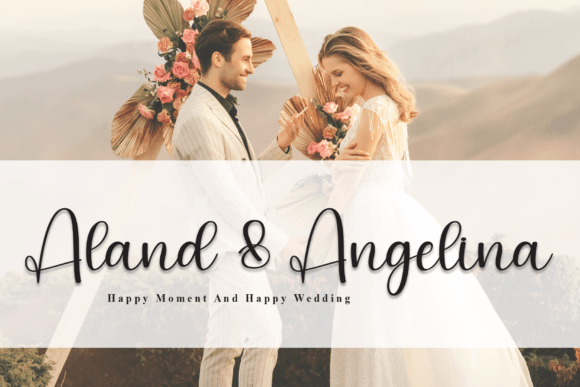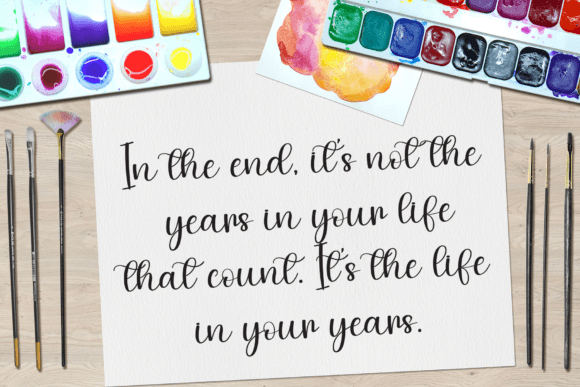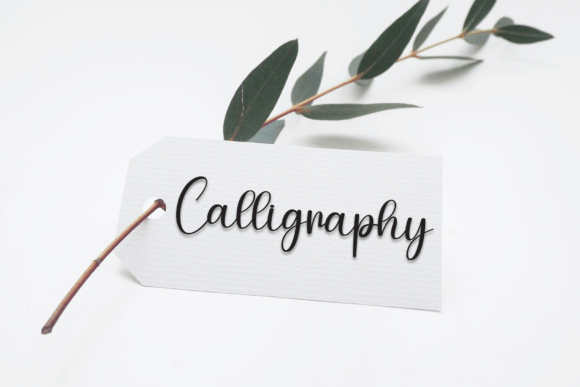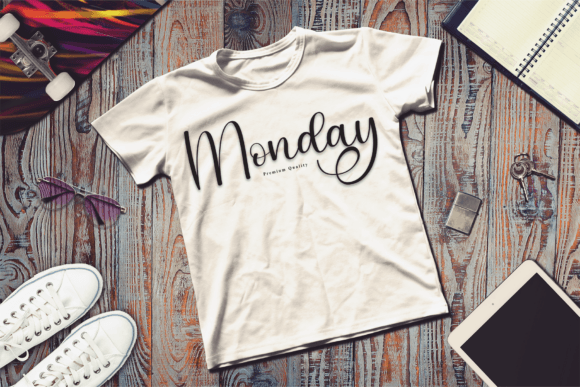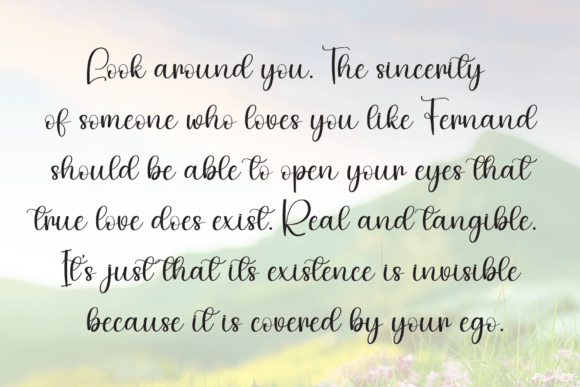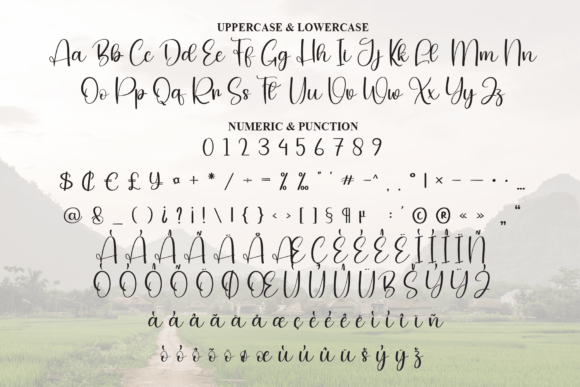
Introducing Country Font: The Charming Handwritten Font for Cozy Designs
Are you looking for a font that captures the essence of a rustic, small-town charm? Look no further than Country Font, a beautiful handwritten font that exudes a cozy, inviting feel. With its smooth curves and friendly style, Country Font is perfect for creating warm and welcoming designs that evoke a sense of nostalgia and simplicity.
The Characteristics of Country Font
Country Font is a carefully crafted handwritten font that boasts a range of characteristics that make it ideal for a variety of design projects. Some of its key features include:
- Smooth curves: Country Font features smooth, flowing curves that give it a soft and approachable feel.
- Handwritten style: The font’s handwritten style gives it a personal, human touch that’s perfect for creating unique and eye-catching designs.
- Easy readability: Despite its decorative nature, Country Font is surprisingly easy to read, making it perfect for use in body text and other applications where legibility is key.
- Warm and inviting: Country Font has a warm, welcoming feel that’s perfect for creating designs that evoke a sense of comfort and coziness.
Uses for Country Font
Country Font is an incredibly versatile font that can be used in a wide range of design projects. Some of the most popular uses for Country Font include:
- Invitations: Country Font is perfect for creating warm and inviting invitations for weddings, parties, and other special events.
- Crafts: The font’s handmade feel makes it a natural fit for craft projects, such as DIY tutorials, patterns, and other handmade goods.
- Casual designs: Country Font is ideal for creating casual designs, such as flyers, brochures, and other marketing materials that require a friendly, approachable feel.
- Signage: The font’s clear, easy-to-read style makes it perfect for use in signage, such as store signs, directional signs, and other types of display text.
Tips for Using Country Font
To get the most out of Country Font, here are a few tips to keep in mind:
- Pair it with contrasting fonts: Country Font pairs beautifully with bold, sans-serif fonts that provide a nice contrast to its smooth, cursive style.
- Use it in moderation: While Country Font is a beautiful font, it can be overwhelming if used excessively. Use it sparingly to add a touch of personality to your designs.
- Experiment with colors: Country Font looks great in a range of colors, from earthy tones to bright, bold hues. Experiment with different colors to find the perfect fit for your design.
Country Font is a charming handwritten font that’s perfect for designers and crafters looking to add a touch of rustic charm to their projects. With its smooth curves, friendly style, and easy readability, Country Font is ideal for creating warm and inviting designs that evoke a sense of nostalgia and simplicity. Whether you’re creating invitations, crafts, or casual designs, Country Font is sure to become a favorite in your font collection.